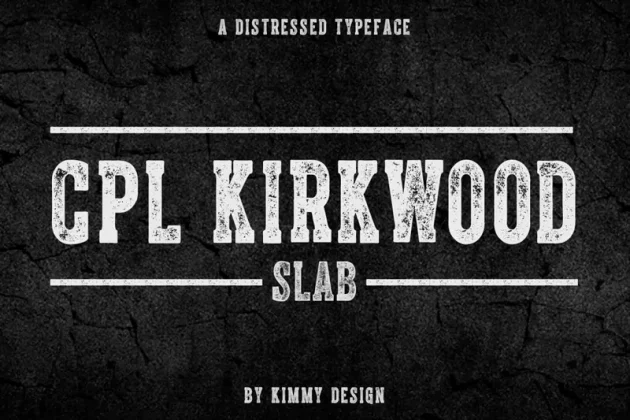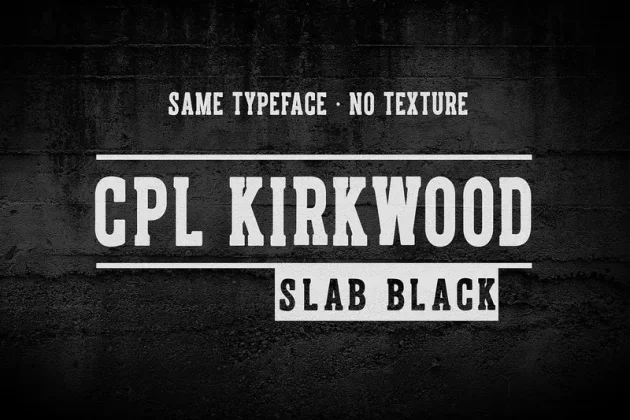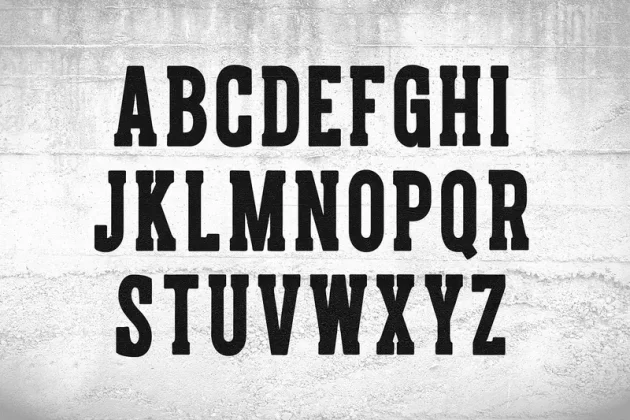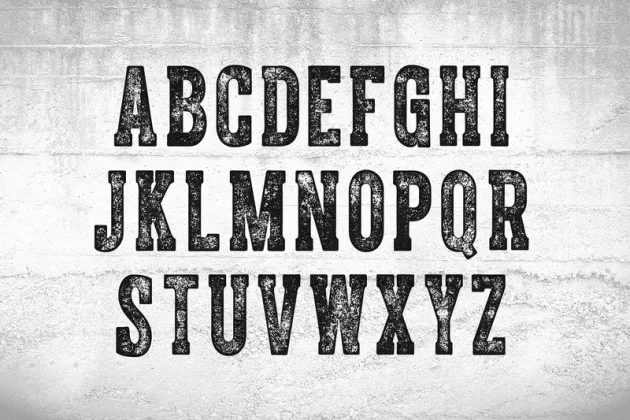
CPL KIRKWOOD SLAB Font
About CPL KIRKWOOD SLAB Font
CPL Kirkwood is an all caps distressed condensed bold slab serif typeface. This version comes in regular and Italics. Goes well with other variations of the family, including sans serif, knockout and ornaments.
Slab family includes
• Cpl Kirkwood Slab
• Cpl Kirkwood Slab Italic
• Cpl Kirkwood Slab Black
• Cpl Kirkwood Slab Black Italic